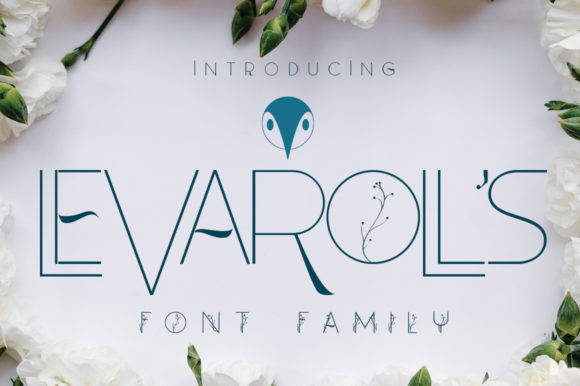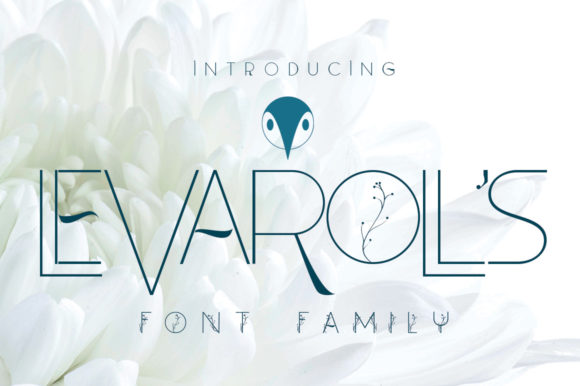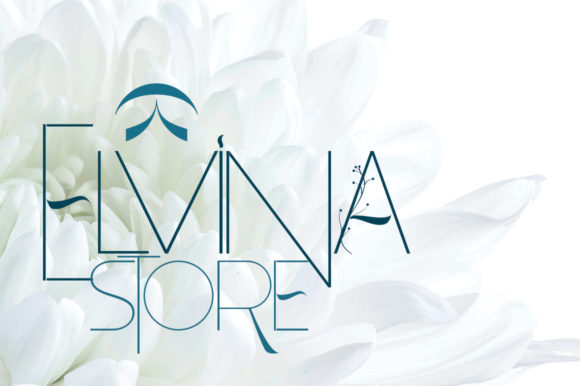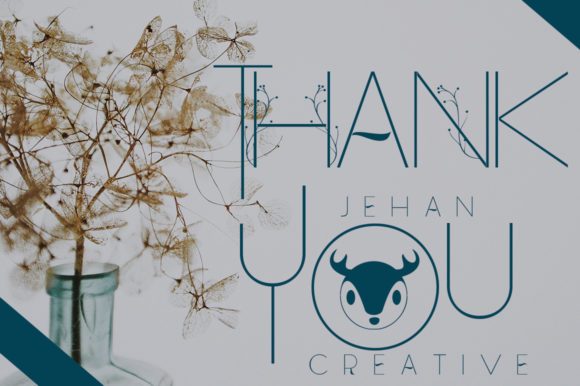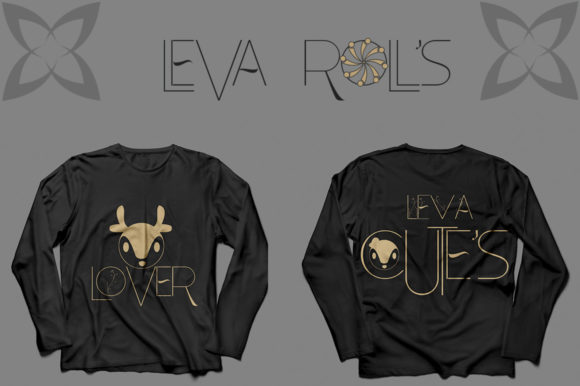
Leva Rolls Font
About Leva Rolls Font
Leva Rolls is a delicate and light sans serif font featuring beautiful and natural ornaments. It will work perfectly in any flower or plant design.